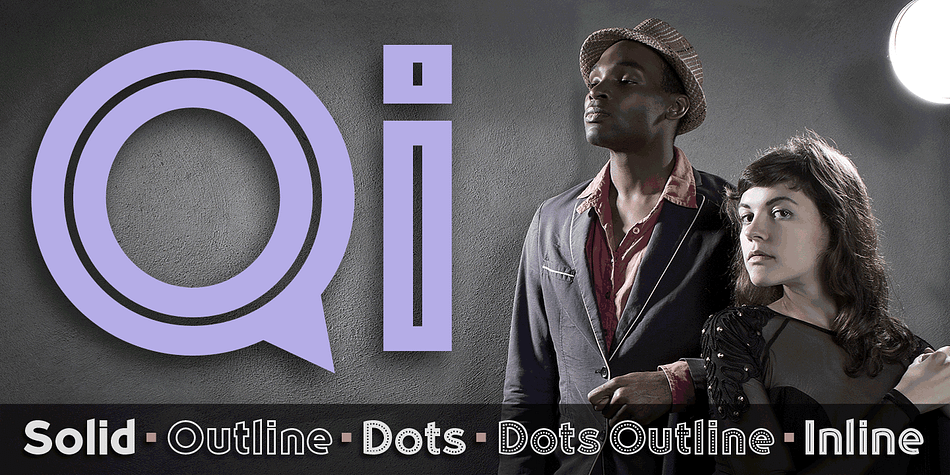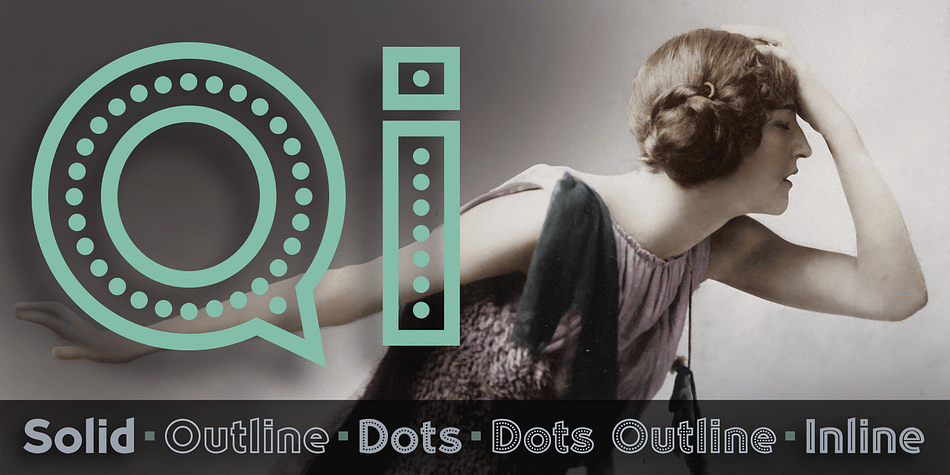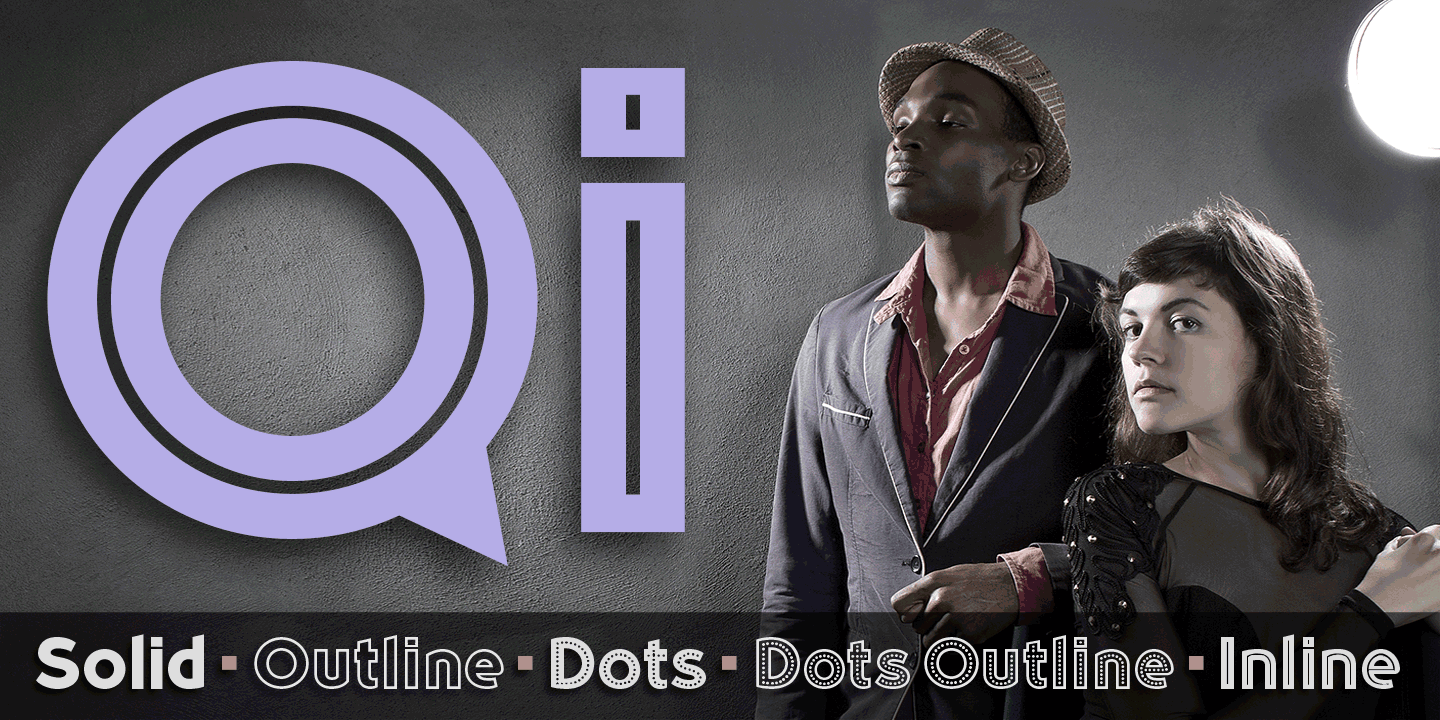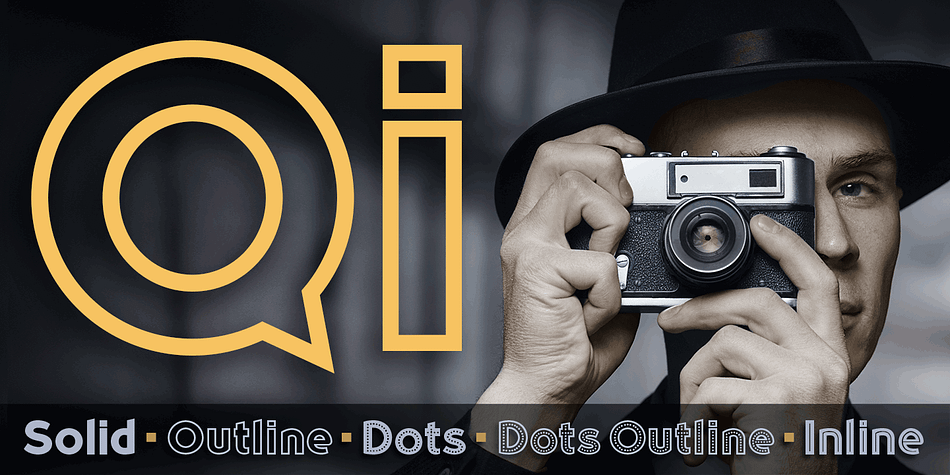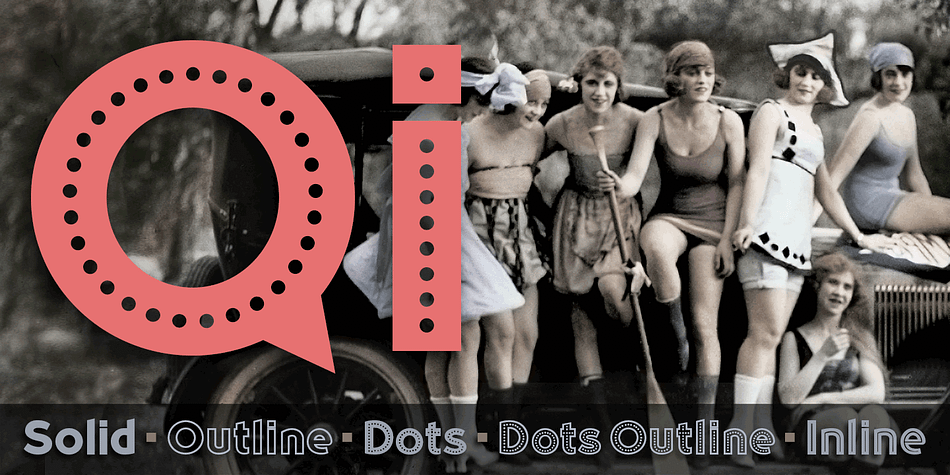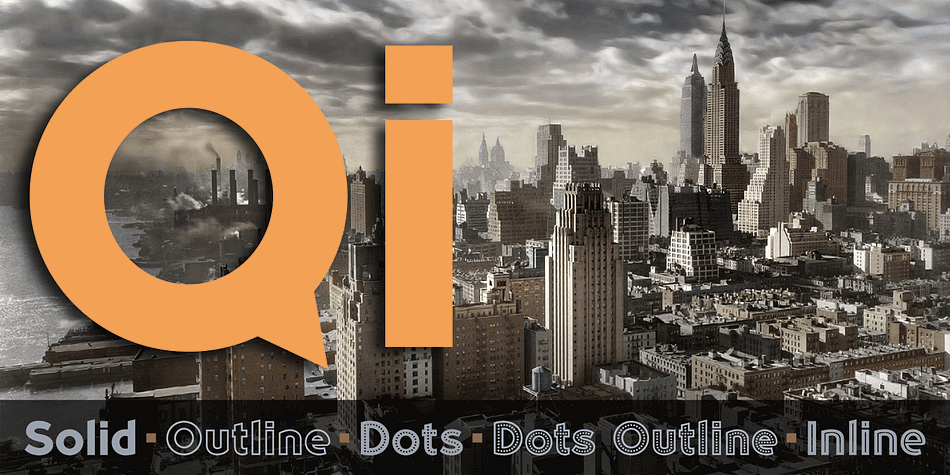
Designed by Cory Maylett, Qi is a display sans and art deco font family. This typeface has five styles and was published by Cory Maylett Design.
Qi is a display sans serif inspired, in part, by the art deco typefaces sometimes seen on old signs along rural American backroads. Unlike these signs, Qi is new, fresh, a little bit quirky, and not at all in need of repair or a fresh coat of paint.
The family comprises six distinct fonts with more on the way. With an entire set of Central and Western European (and, of course, American) glyphs, plus a bunch of alternates and ligatures, Qi could be the perfect display face for your next sign, poster, newsletter, headline or, well, most anything else. Hey, the lowercase alone makes these fonts well worth the price.